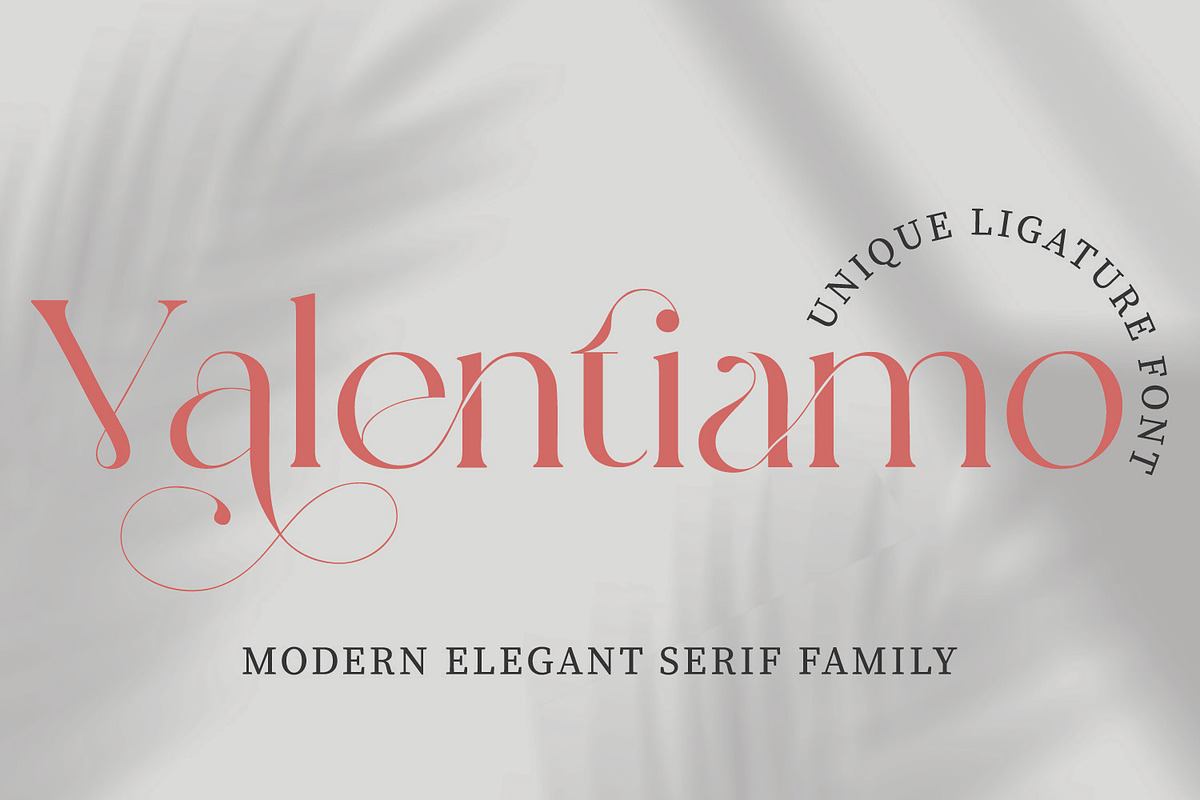
The Valentiamo | Modern Serif Family Free Download is a sophisticated and versatile typeface family designed to bring a refined, modern touch to your designs. Featuring a clean and elegant serif structure, this font family offers a range of weights and styles, making it perfect for everything from luxurious branding to editorial design, logos, and marketing materials. Whether you’re working on high-end branding, creative projects, or professional publications, Valentiamo adds a sleek and polished look to your work.
Valentiamo | Modern Serif Family Free Download is ideal for designers looking to add a touch of elegance and professionalism to their typography. Perfect for upscale branding, websites, or editorial projects, this font family will elevate your designs with its contemporary, timeless appeal. Download it today and enhance your creative work with the versatility of Valentiamo!